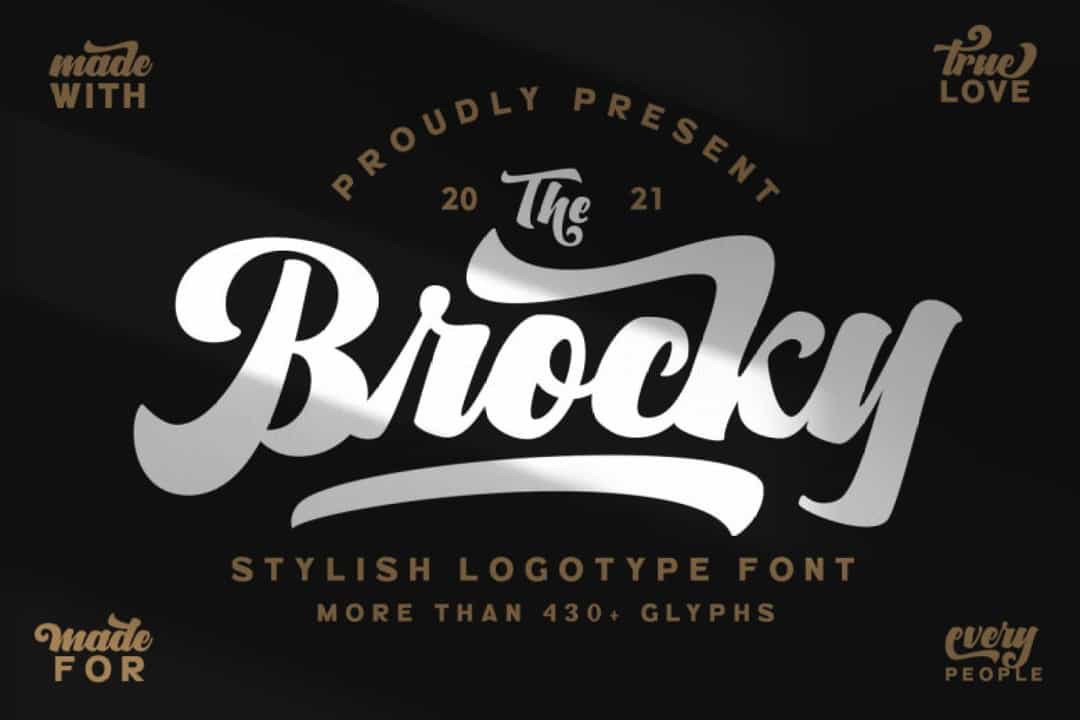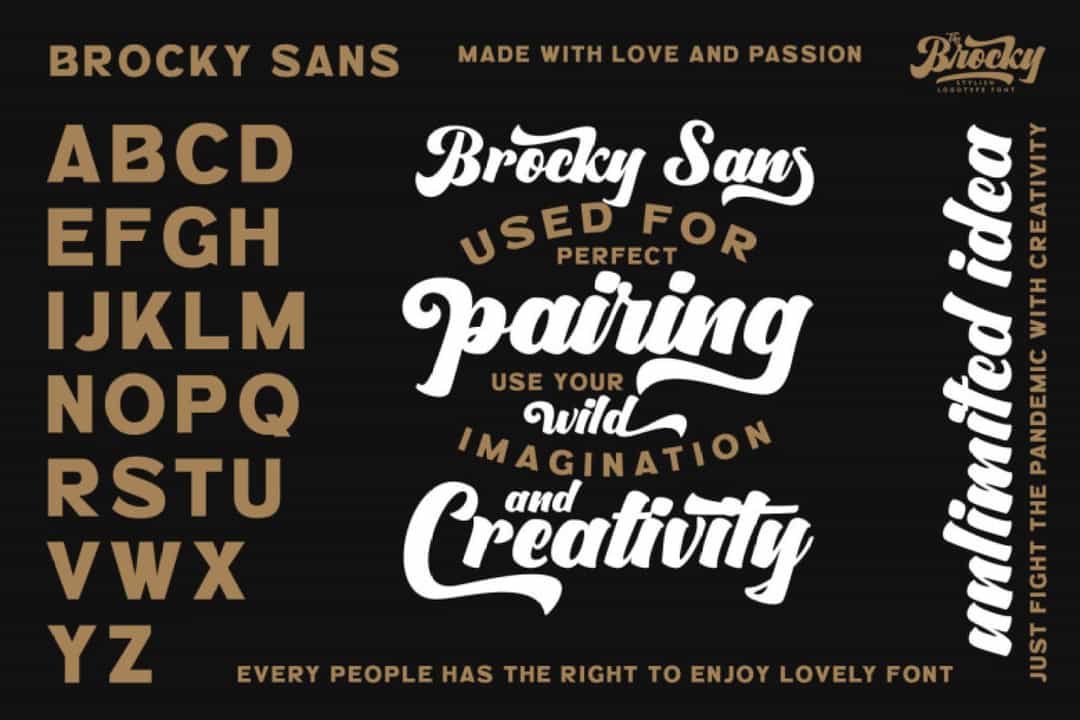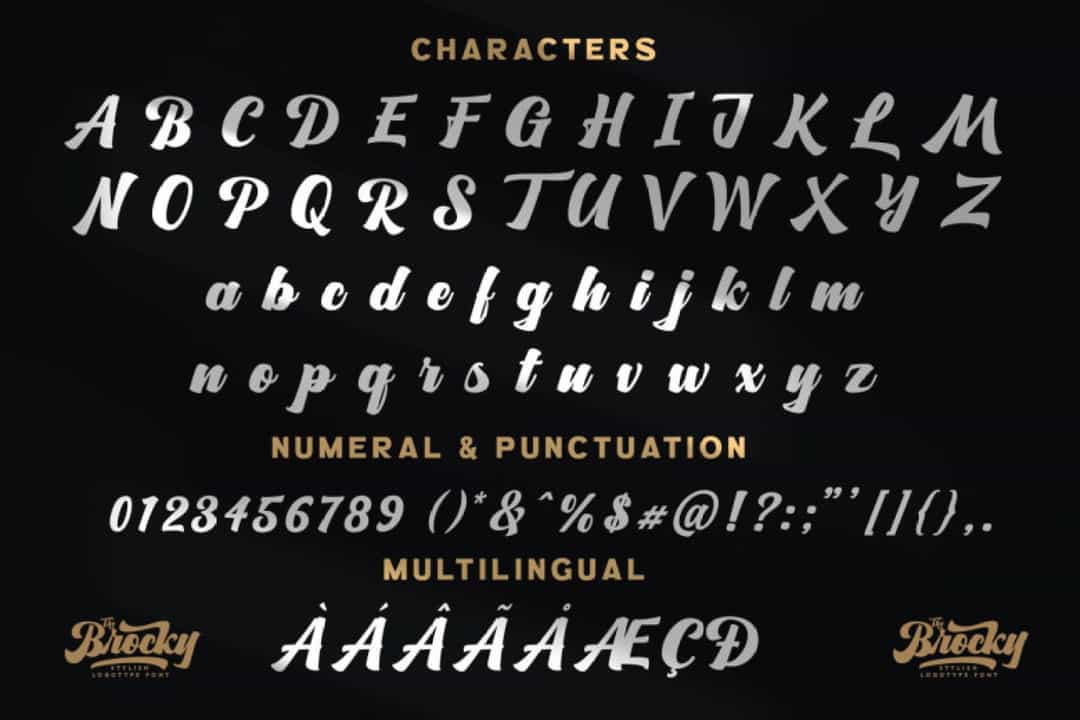
The Brocky Font
Brocky is a stunning and eye-catching duo font (sans serifs and handwritten), designed to add vintage appeal to logotypes and headlines. This font reads bold and confident, adding great nostalgia to designs. PUA encoded, you can access all its glyphs as well as swashes easily!